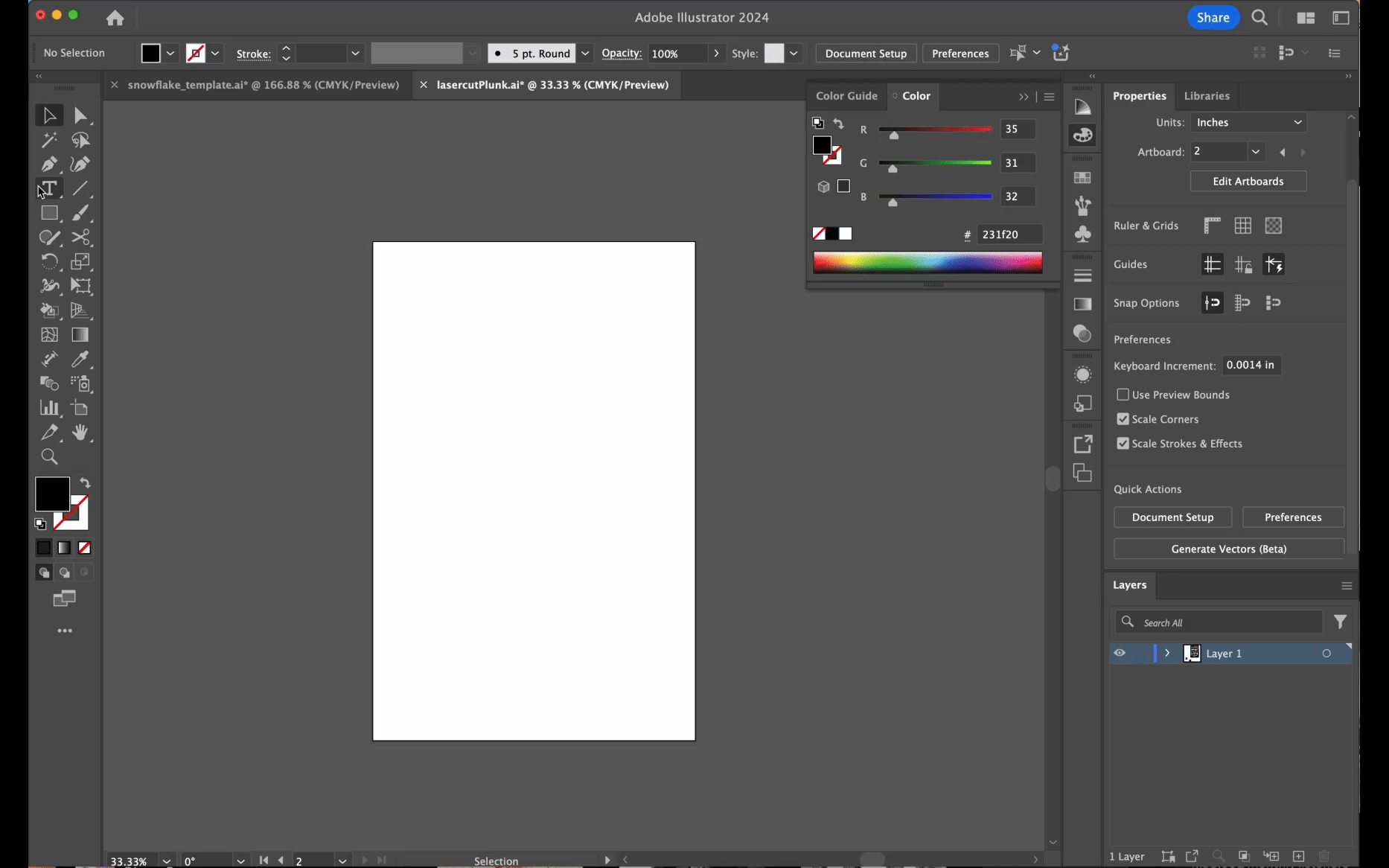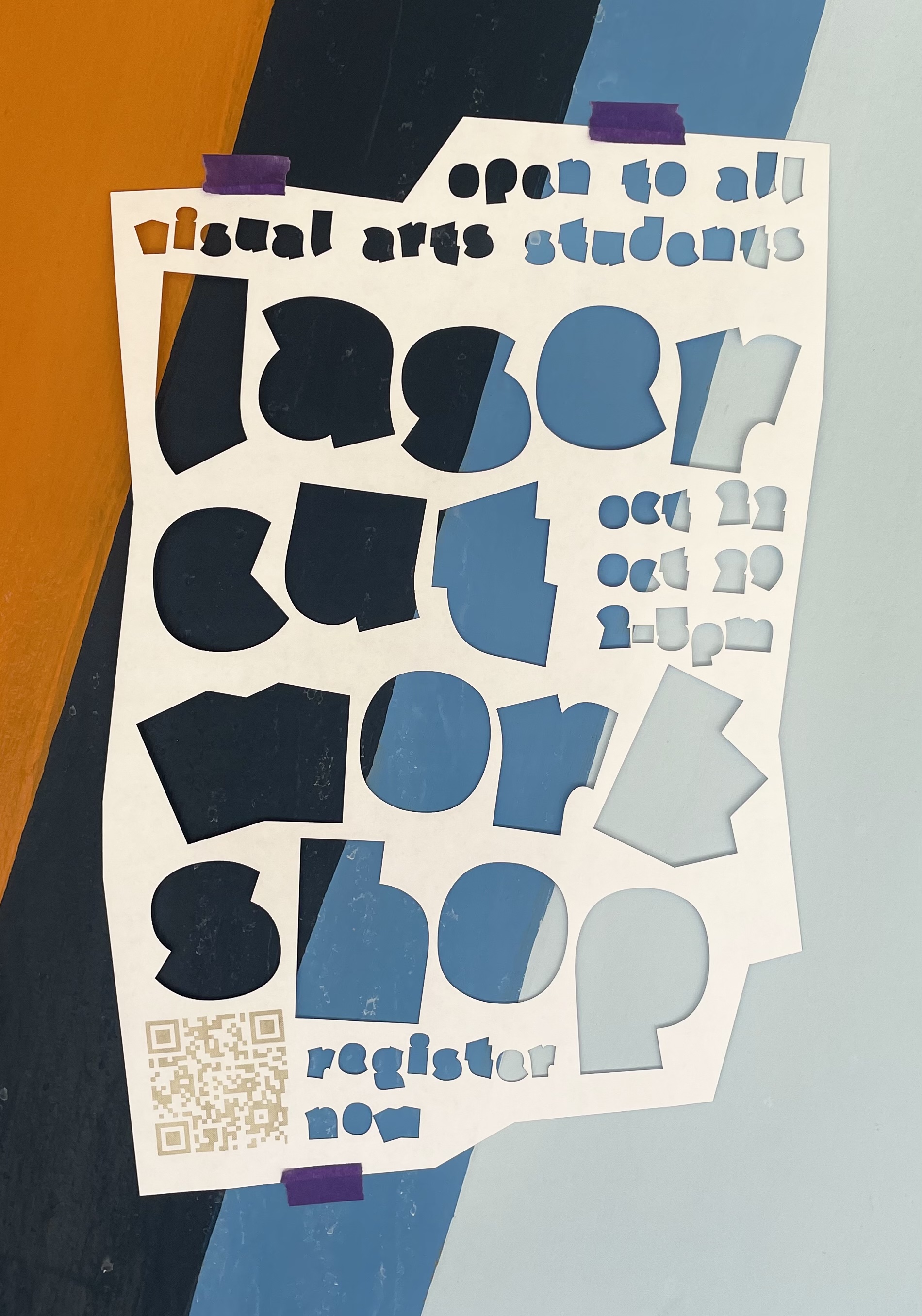
Our Art Department recently introduced a new laser cutter, providing students with an exciting tool to experiment with for their projects. To help them get started, I led a workshop demonstrating its capabilities and exploring creative possibilities. As part of the process, I designed and cut this poster using Plunk, both to proof the typeface and to experiment with its unique character in laser-cut design. This project allowed me to showcase the font in action while pushing the boundaries of typography in a hands-on, tactile medium.